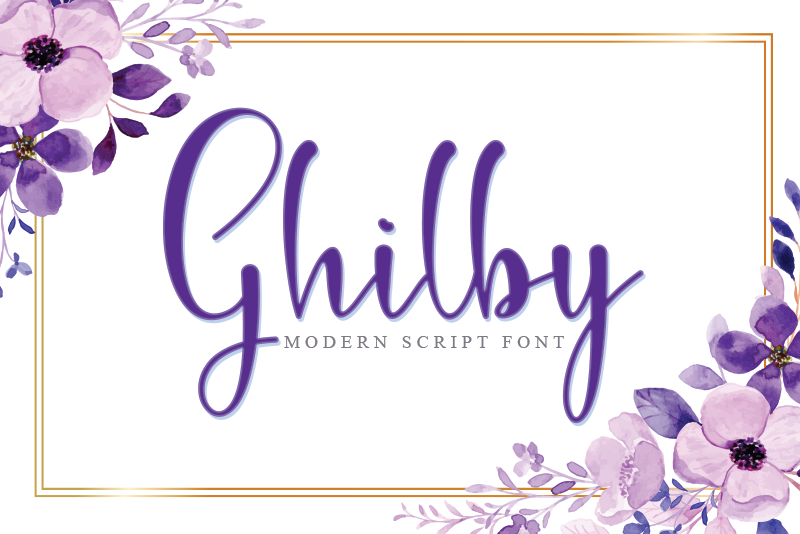
Preview and download Ghilby Font. Created by Harjuno Kristanto in Script Handwritten styles with Free for personal use license.
Font name: | Ghilby |
Author: | Harjuno Kristanto |
Ghilby script font is a modern handwriting that is designed with great care so that it creates beautiful letter lines, looks elegant and very beautiful. Ghilby is inspired by the word "Gilby" which means auspiciousness. Ghilby font is very suitable for wedding invitations, greeting cards, promotions, designs, etc. For Commercial licenses and complete set available at: https://www.creativefabrica.com/designer/arkrist-letter-studio/ref/640128 Thanks for checking out my store, and feel free to get in touch if you have any questions! harjunokristanto@gmail.com |